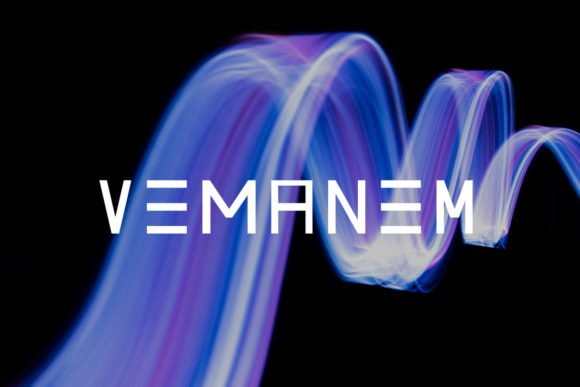
Feast your eyes on Vemanem Font, a typographic masterpiece crafted with meticulous attention to detail. Immerse yourself in the world of display fonts, where Vemanem reigns supreme. This modern and cool font is not just a collection of letters; it's an artistic expression that will transform your creative projects into captivating masterpieces.
Step into a world of limitless possibilities with Vemanem Font. Its versatility knows no bounds, making it the perfect companion for a myriad of design endeavors. Craft stunning trifold posters that leave a lasting impression, design eye-catching logos that demand attention, or create web designs that exude elegance and sophistication. Vemanem Font is your secret weapon to unleash your creativity and make a bold statement in the digital realm.
Unleash the power of Vemanem Font and watch your designs soar to new heights. Its carefully crafted characters dance harmoniously on the page, creating a visual symphony that captivates and enthralls. Each letterform is imbued with a touch of modernism, perfectly balancing sharp edges with graceful curves. The result is a font that is both visually striking and effortlessly readable, making it the ideal choice for a wide range of projects.
Don't settle for ordinary fonts that blend into the background. Embrace the extraordinary with Vemanem Font, a font that commands attention and leaves a lasting impression. Its bold and confident strokes exude a sense of authority and sophistication, making it the perfect choice for projects that demand impact and distinction.
Elevate your design game with Vemanem Font. Its remarkable ability to elevate any creation sets it apart from the ordinary. Whether you're a seasoned designer or just starting out, this font will empower you to create designs that captivate and inspire. Its intuitive design ensures a seamless workflow, allowing you to focus on your creativity without getting bogged down in technicalities.